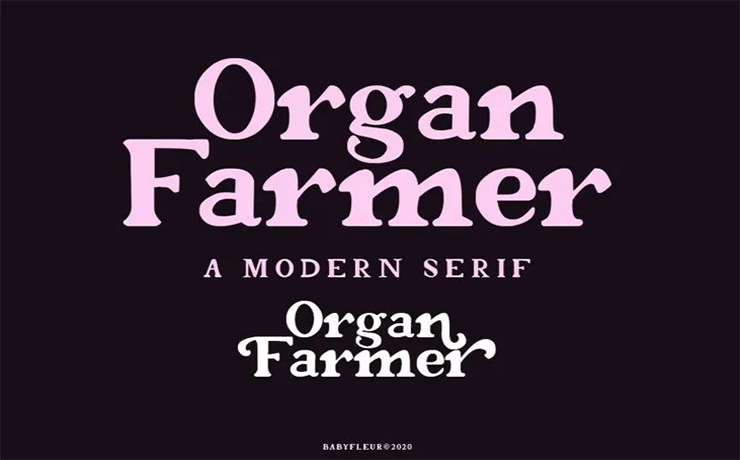
Organ Farmer Font is a new vintage-style serif typeface that is fresh, with a modern flavor. Due to its soft and gentle shapes, it looks amazing in a logo, poster, flyers, and more.
Indonesia-based designer Pria Rakhman is known as the primary designer of this elegant display font.
It has a charming shape that can be used for the purpose of display and it has great characters that have an amazing ability to read.
It looks like Playfair Display and many other beautiful fonts. It has a great shape and consistency in all the characters of this font which is the most unique thing in this great font.
| Font Name: | Organ Farmer Font Family |
| Style: | Serif, Basic, Display |
| Font Designer: | Pria Rakhman |
Here we provide an image containing the characters and letters of this beauty that is like the Supreme Font.
It is ideal for printing objects, emblems layouts, logo design, branding, brochure designs, posters, banner ads, official business cards, invitation or wedding cards, and so on.